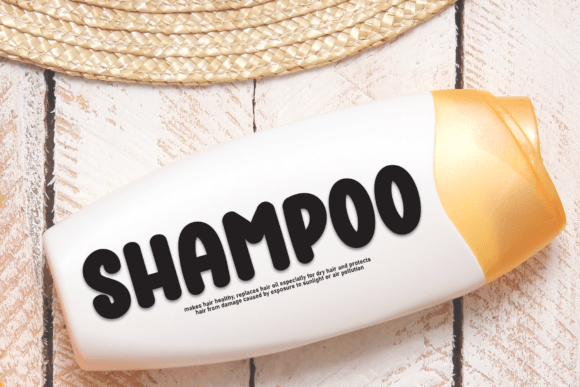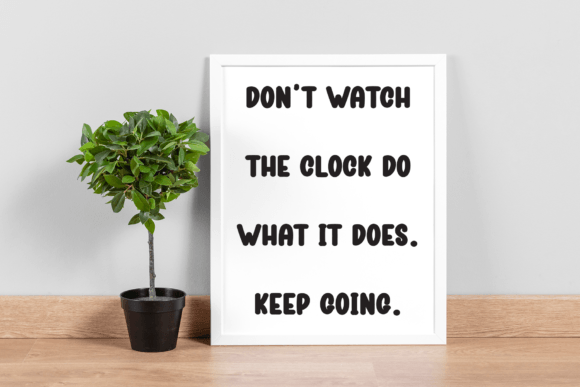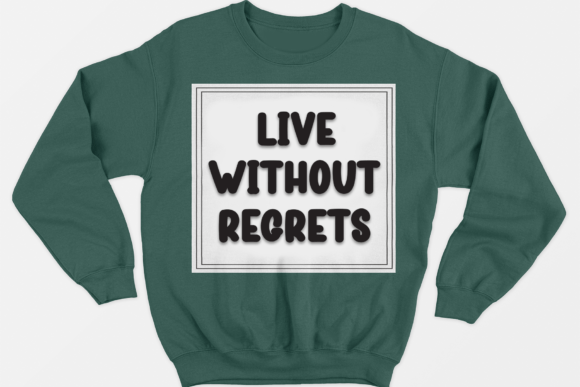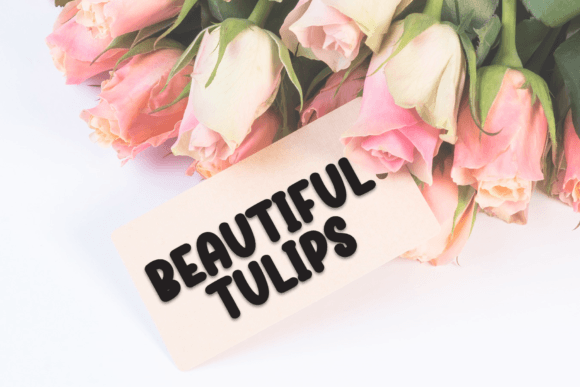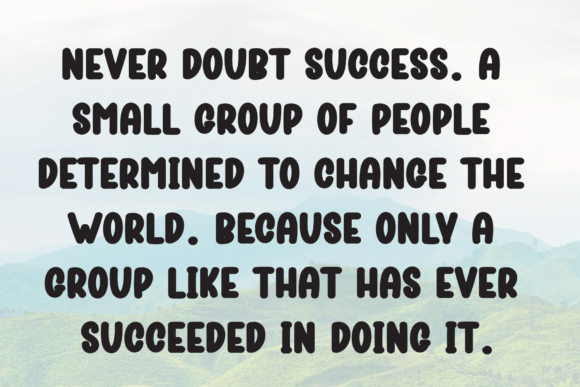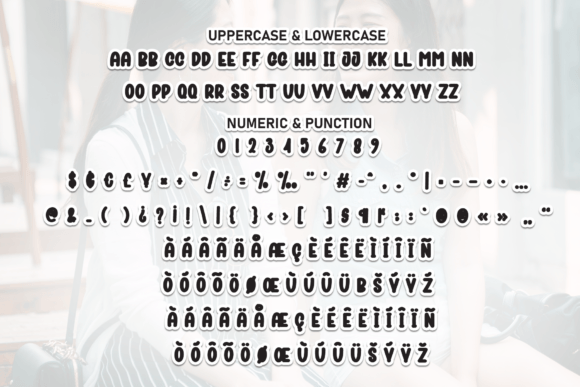
Introducing Girl Friend Font: Adding a Personal Touch to Your Designs
Are you tired of using the same old fonts in your designs? Do you want to add a personal touch to your text and make it stand out? Look no further than the Girl Friend Font, a bold, all-caps handwritten font that’s perfect for designers and crafters alike. In this article, we’ll take a closer look at the Girl Friend Font, its features, and how you can use it to elevate your designs.
What is Girl Friend Font?
Girl Friend Font is a bold, all-caps handwritten font that’s designed to add a fun and friendly style to your text. With its playful and approachable vibe, this font is perfect for a wide range of design projects, from social media graphics to invitations, and even branding materials. The font’s bold and all-caps design makes it easy to read and understand, while its handwritten style adds a personal touch that’s hard to replicate with traditional fonts.
Key Features of Girl Friend Font
- Bold and All-Caps Design: The Girl Friend Font is designed to make a statement with its bold and all-caps design. This makes it perfect for headlines, titles, and other text that needs to stand out.
- Handwritten Style: The font’s handwritten style adds a personal touch to your text, making it feel more approachable and friendly.
- Fun and Friendly Style: The Girl Friend Font has a fun and friendly style that’s perfect for designs that need to appeal to a younger audience.
- Easy to Read: Despite its bold and playful design, the Girl Friend Font is easy to read and understand, making it perfect for use in a wide range of design projects.
How to Use Girl Friend Font in Your Designs
The Girl Friend Font is a versatile font that can be used in a wide range of design projects. Here are a few ideas to get you started:
- Social Media Graphics: Use the Girl Friend Font to add a personal touch to your social media graphics, such as Instagram posts and Facebook updates.
- Invitations: The font’s playful and friendly style makes it perfect for use in invitations, such as birthday party invitations or wedding invitations.
- Branding Materials: Use the Girl Friend Font to add a personal touch to your branding materials, such as business cards, brochures, and flyers.
- DIY Projects: The font’s handwritten style makes it perfect for use in DIY projects, such as handmade cards and gift tags.
Tips for Getting the Most Out of Girl Friend Font
Here are a few tips for getting the most out of the Girl Friend Font:
- Use it Sparingly: While the Girl Friend Font is a fun and playful font, it can be overwhelming if used too much. Use it sparingly to add a personal touch to your text.
- Pair it with Other Fonts: The Girl Friend Font pairs well with other fonts, such as sans-serif fonts and script fonts. Experiment with different font combinations to find the one that works best for your design.
- Experiment with Colors: The Girl Friend Font looks great in a wide range of colors, from bright and bold colors to more muted and pastel colors. Experiment with different colors to find the one that works best for your design.
The Girl Friend Font is a bold, all-caps handwritten font that’s perfect for designers and crafters alike. With its fun and friendly style, this font is sure to add a personal touch to your text and make it stand out. Whether you’re working on a social media graphic, an invitation, or a branding project, the Girl Friend Font is a great choice. So why not give it a try and see how it can elevate your designs?